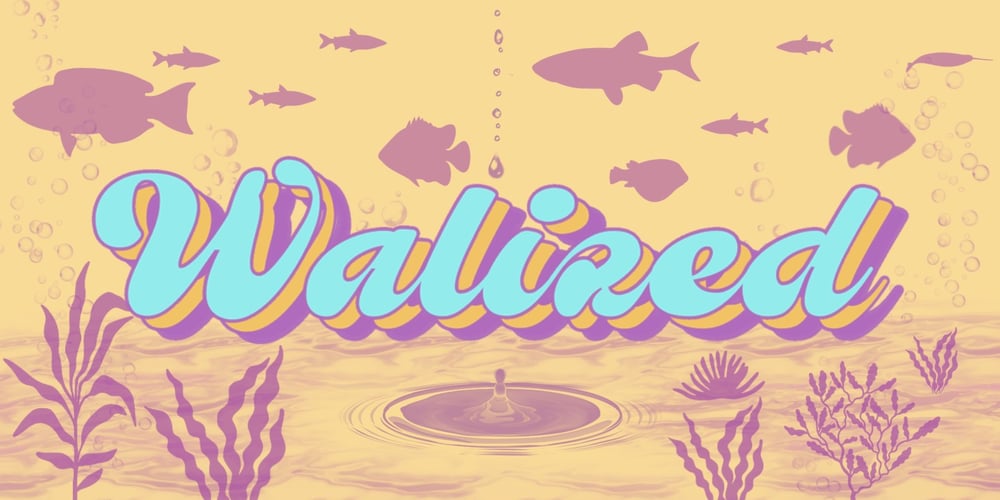
Walized Font Family was designed by Khair Unnas and published by Khaiuns. Walized contains 1 styles and family package options. Introducing Walized, a refined and elegant font with singular weight and graceful curves, reminiscent of timeless sophistication. Crafted with precision and attention to detail, Walized captures the essence of understated luxury, perfect for adding a touch of timeless elegance to your designs.With its sleek lines and delicate strokes, Walized embodies harmony and balance, making it ideal for a wide range of design applications. Whether used for branding, packaging, invitations, or editorial design, Walized makes a striking impression with its effortless charm and versatility.Elevate your projects with the understated elegance of Walized, and discover the beauty of simplicity in every stroke.